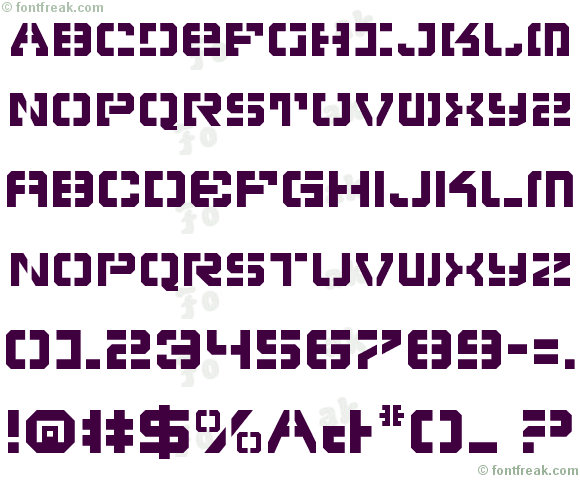
Vyper Condensed
Vyper Condensed is a striking display font designed by Daniel Zadorozny, classified as a bold, condensed typeface. Released in 2008, this freeware font is characterized by its unique geometric shapes and sharp angles, making it an eye-catching choice for various design projects. The stroke weight is uniform yet bold, delivering a sense of strength and modernity. The font features minimal contrast, which enhances legibility while maintaining a contemporary aesthetic. Its compact spacing allows for effective use in tight layouts, making it suitable for attention-grabbing headlines and titles.
Ideal use cases for Vyper Condensed include movie posters, where its bold presence can command attention and convey a sense of excitement. It works brilliantly for branding projects, particularly for tech startups or gaming companies seeking a modern edge. Additionally, this font can enhance restaurant menus, giving them a stylish and unique flair that stands out to customers. Graphic designers and content creators will find Vyper Condensed particularly appealing for promotional materials or advertisements that require a strong visual statement.
Targeting graphic designers, small business owners, and content creators, Vyper Condensed is designed for those who want to make a lasting impression. Its distinctive style provides versatility while remaining true to its bold roots. The font's ability to blend seamlessly into various themes and projects makes it a valuable asset in any designer’s toolkit.
In summary, Vyper Condensed stands out due to its unique geometric design and bold characteristics, making it a perfect choice for anyone looking to create impactful visual content. With the Vyper Condensed font free download available, you can easily incorporate this remarkable typeface into your next design project and elevate your creative work to new heights.